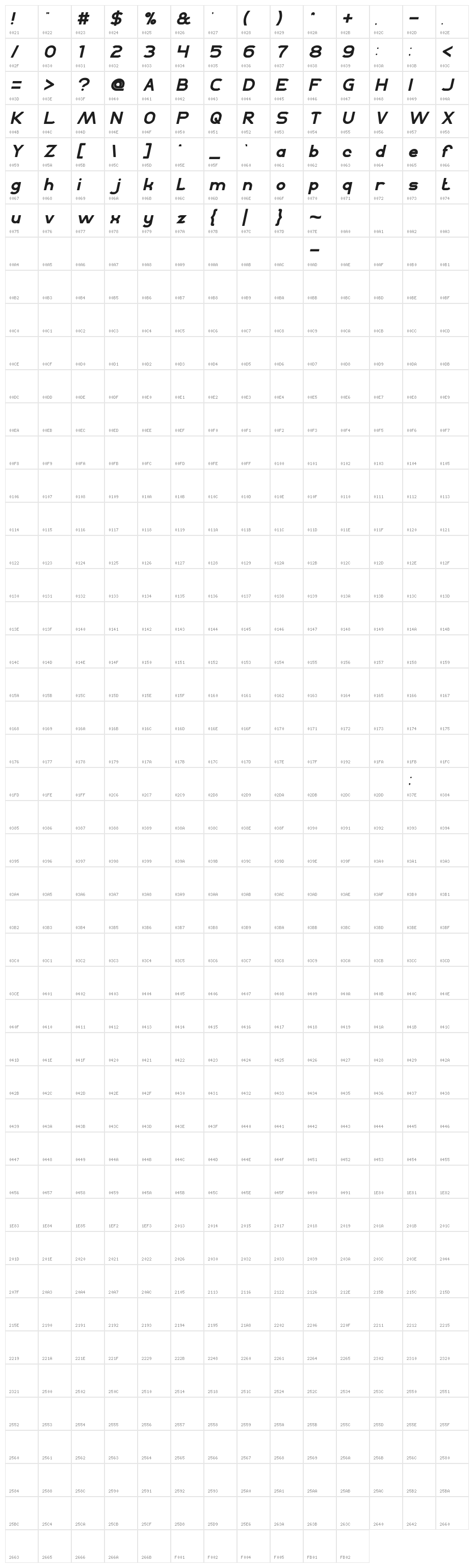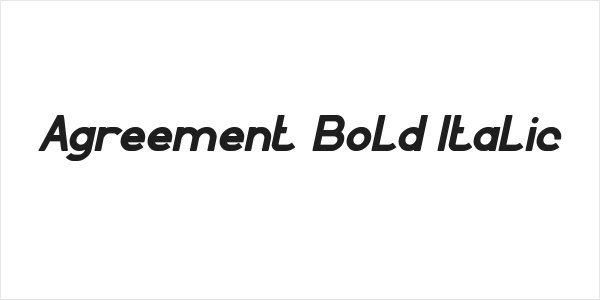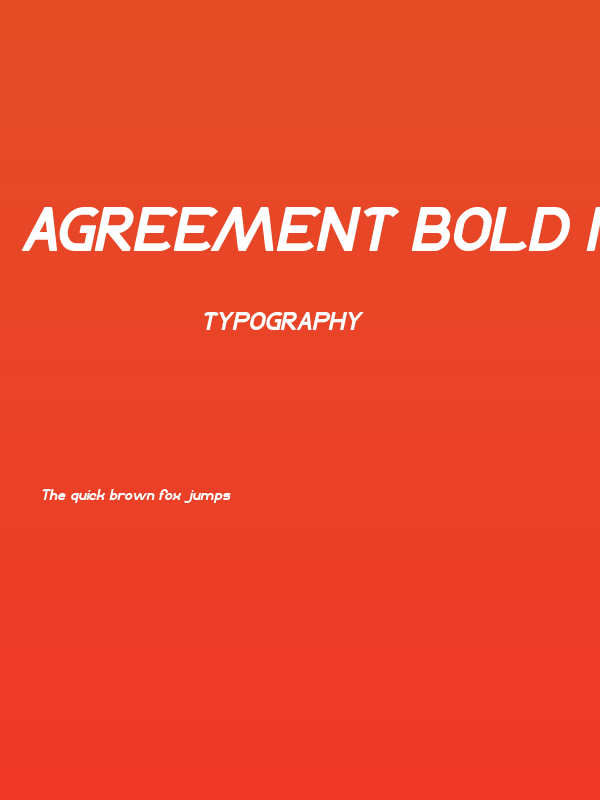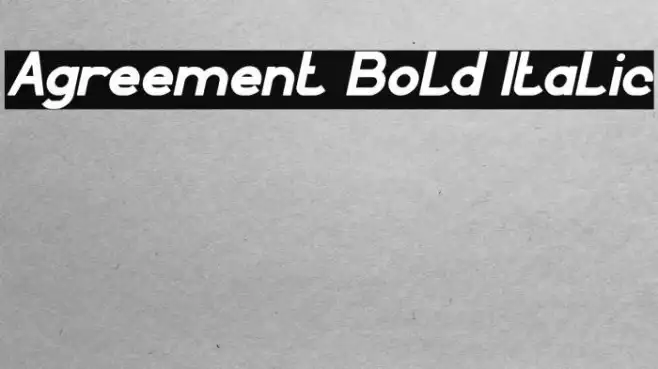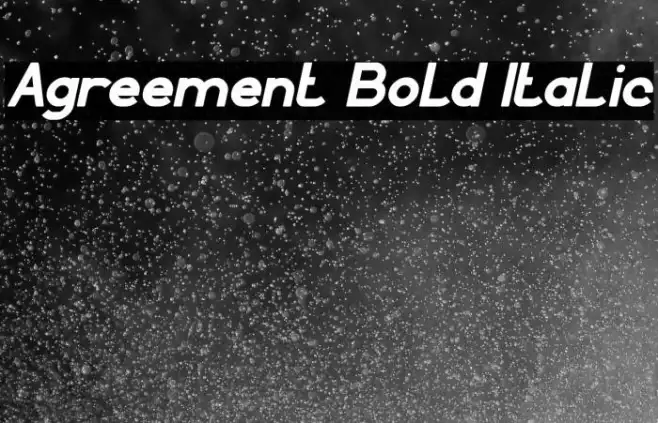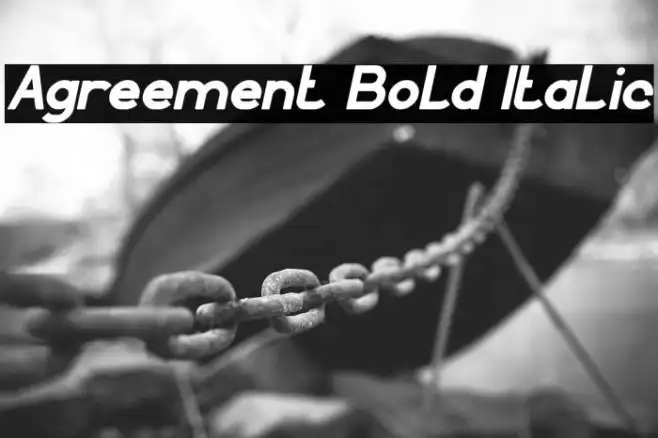
Agreement Bold Italic Font
Agreement Bold Italic Description
This font features a bold and italicized style, characterized by its strong, slanted letterforms that convey a sense of movement and dynamism. The uppercase and lowercase letters are well-proportioned, with a consistent stroke weight that enhances readability. The numerals are clear and distinct, while the special characters are designed to complement the overall aesthetic. The font's modern and sleek appearance makes it suitable for a variety of design applications.